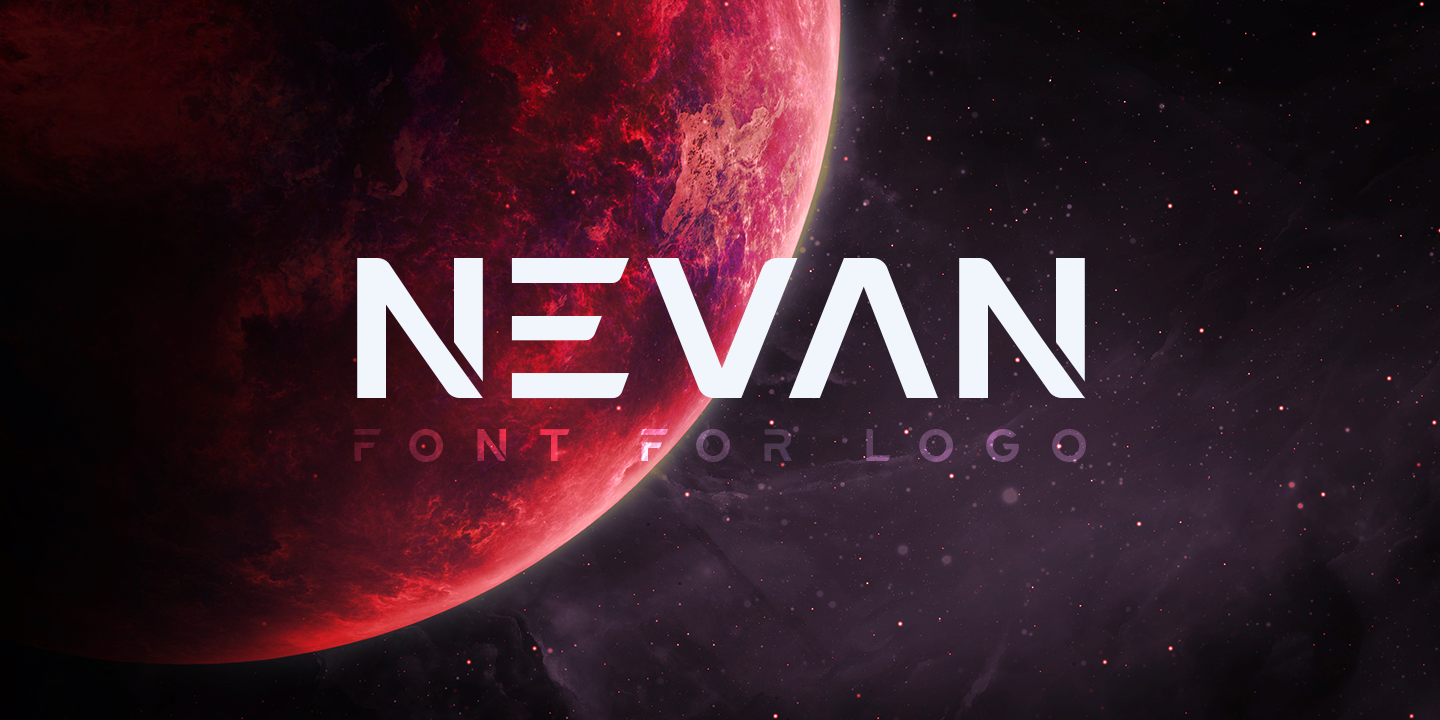
Nevan Font is a sleek and contemporary sans-serif typeface designed for versatility and clarity. Perfect for branding, editorial layouts, websites, and user interfaces, it provides a clean and modern aesthetic that enhances any design.
What makes Nevan Font Free Download so exciting is its balanced proportions and smooth curves, which offer excellent readability and a professional appearance across both digital and print media.
The Nevan Font family typically includes multiple weights such as Light, Regular, Medium, and Bold, giving designers the flexibility to establish hierarchy and emphasis in their typography.
Whether you’re designing logos, marketing materials, or digital content, Nevan Font Free Download ensures your projects look polished and contemporary.